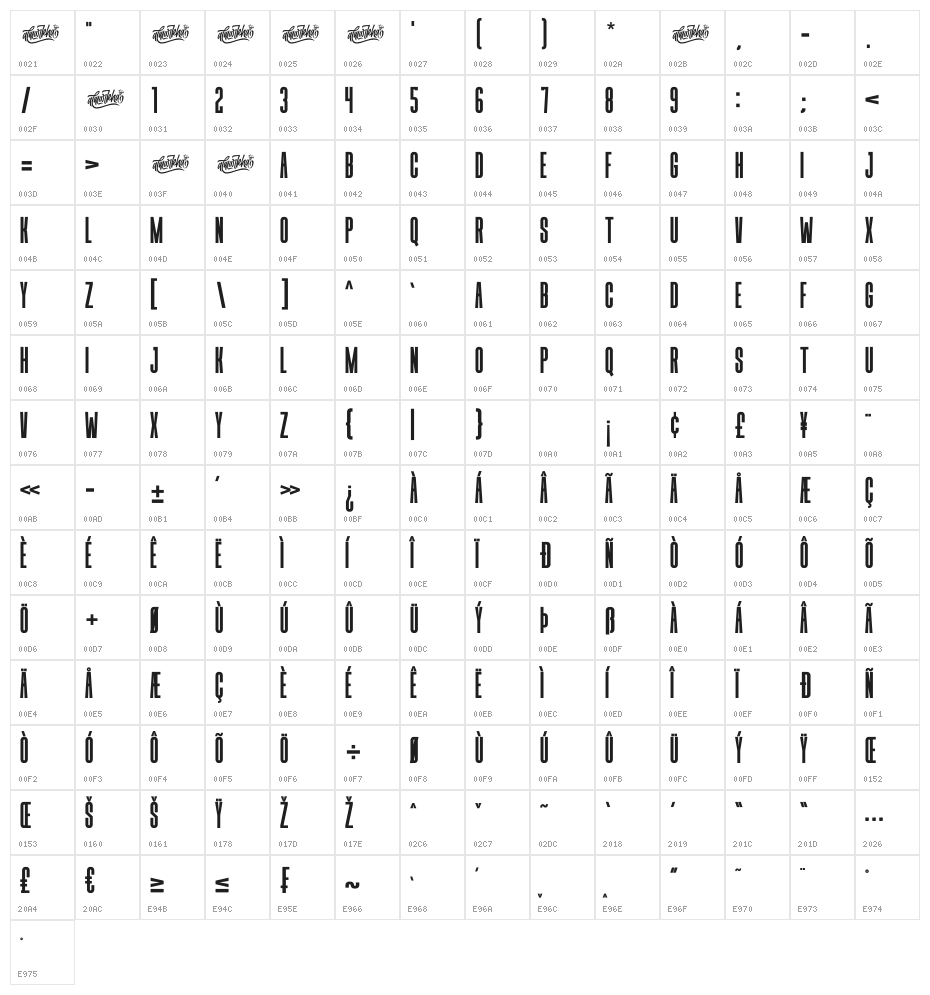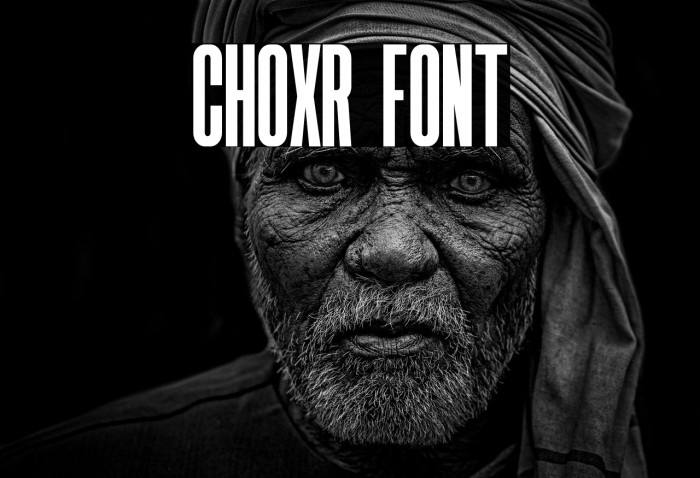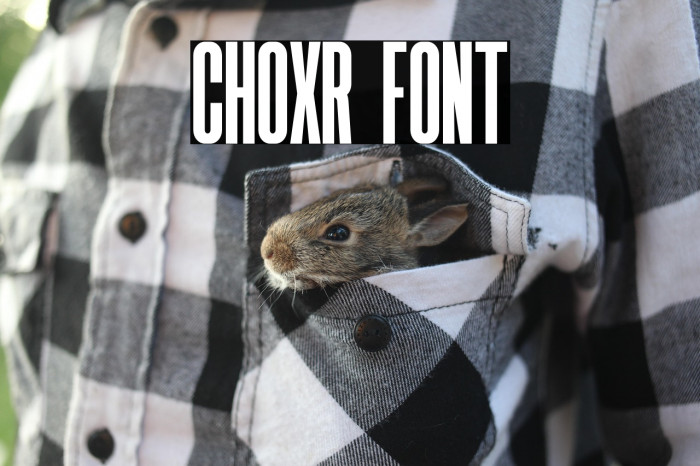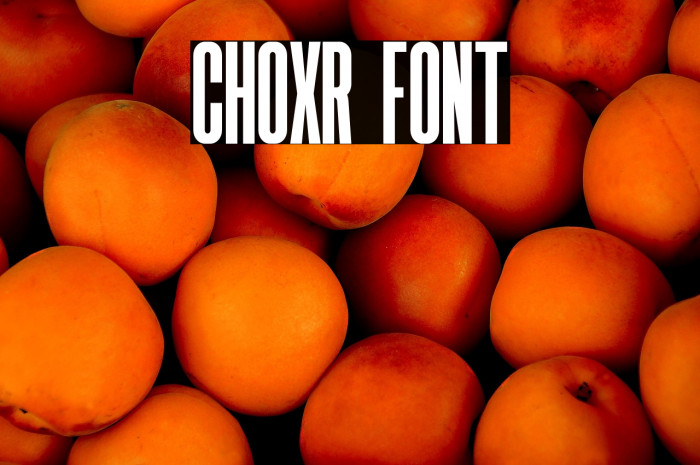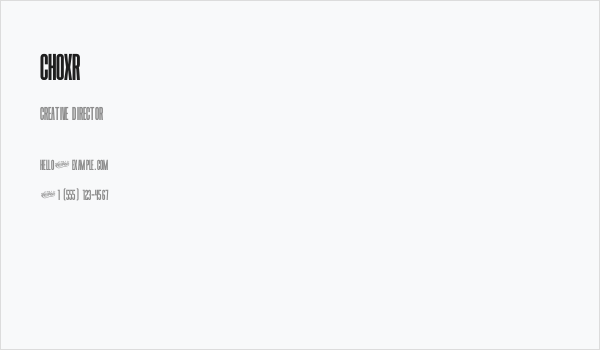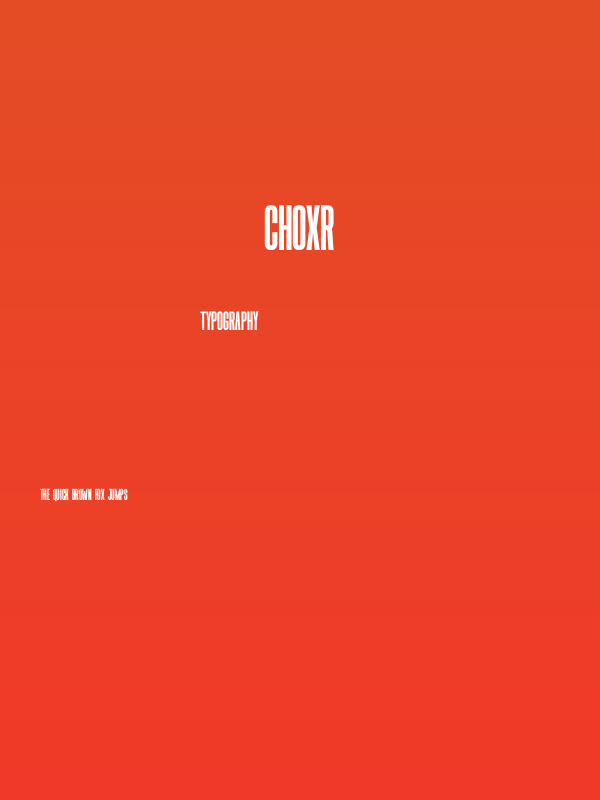
CHOXR Font
CHOXR Description
This font features a bold and impactful design with tall, narrow characters that convey a strong presence. The uppercase letters are particularly striking, with a consistent height and width that create a uniform appearance. The lowercase letters maintain the same boldness, ensuring readability and visual coherence. The numbers are equally bold and well-proportioned, making them suitable for various applications. Special characters are included, adding versatility to the font's use. The overall style is modern and assertive, making it ideal for projects that require a strong visual impact.
| Proposed Projects | Ideal for headlines, posters, branding, and any project needing a bold statement. |